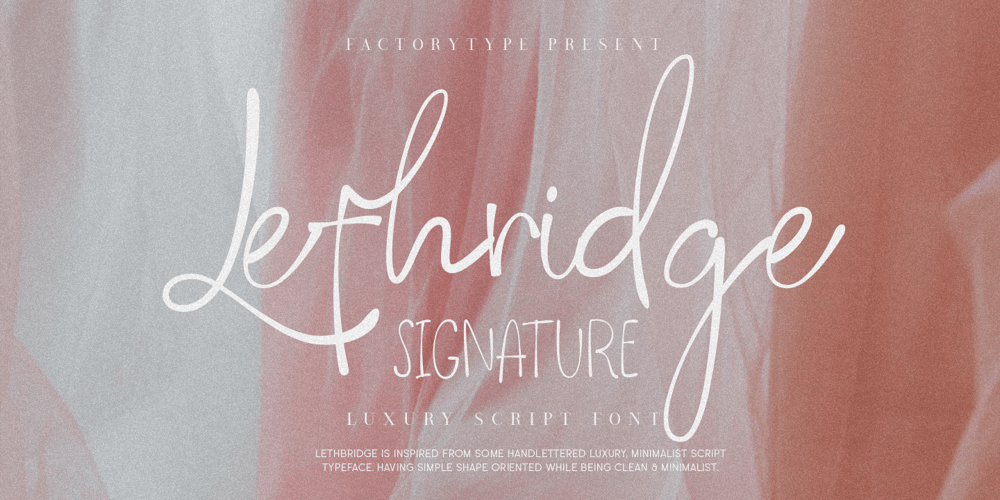
Lethbridge Font Family was designed by Wahyu Rahmawan and published by Factory738. Lethbridge contains 3 styles and family package options. Introducing Lethbridge a luxury handwritten font with a personal touch. Lethbridge script is ideal for a variety of projects that require a handwritten touch, such as branding and logo designs, wedding invitations and stationery, social media posts and advertisements. Lethbridge Script (Regular, Caps, and Tails) Basic Latin A-Z and a-z Numerals & Punctuation Stylistic Ligatures Multilingual Support for ä ö ü Ä Ö Ü … OTF file format Free updates and feature additions Thanks for looking, and I hope you enjoy it.